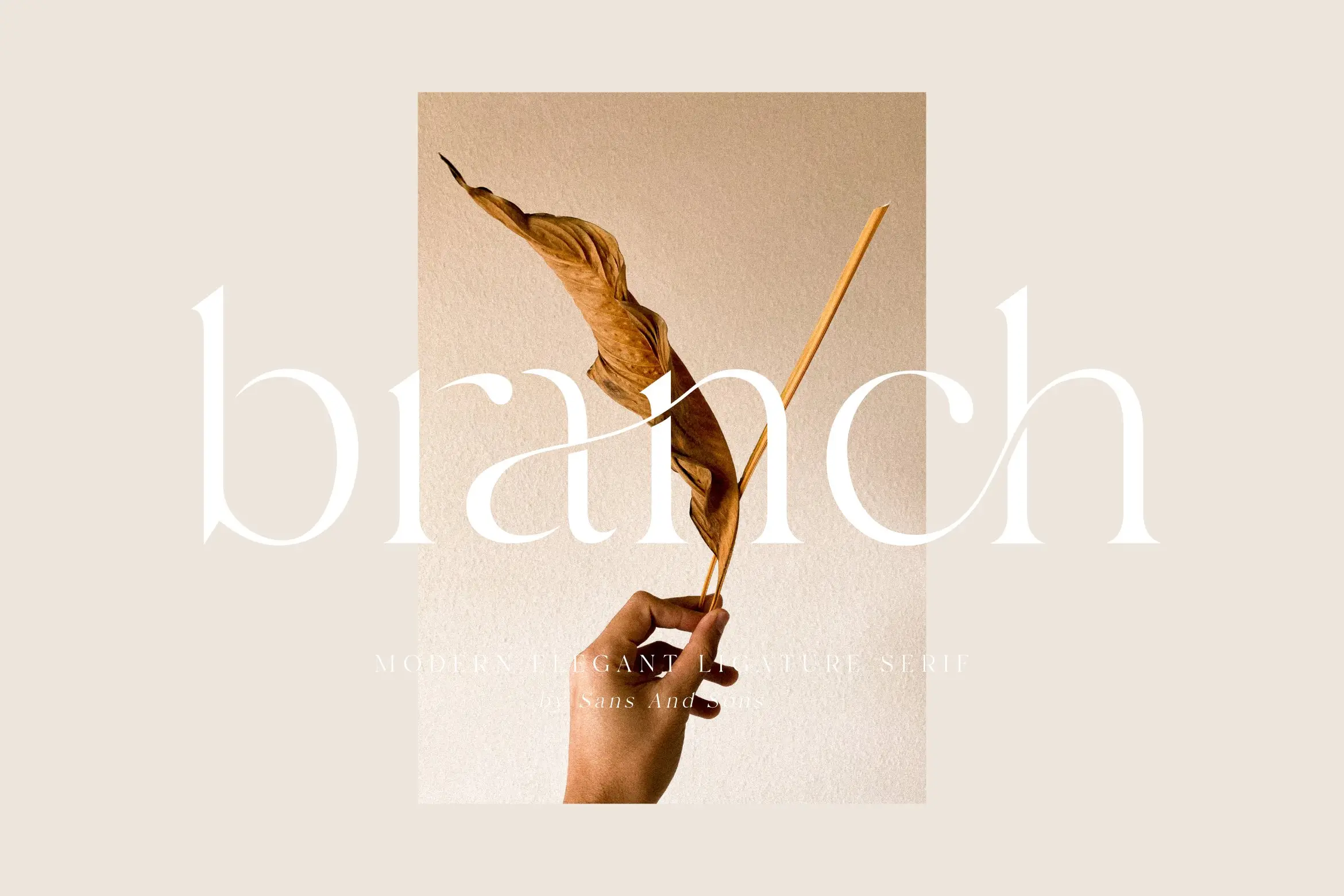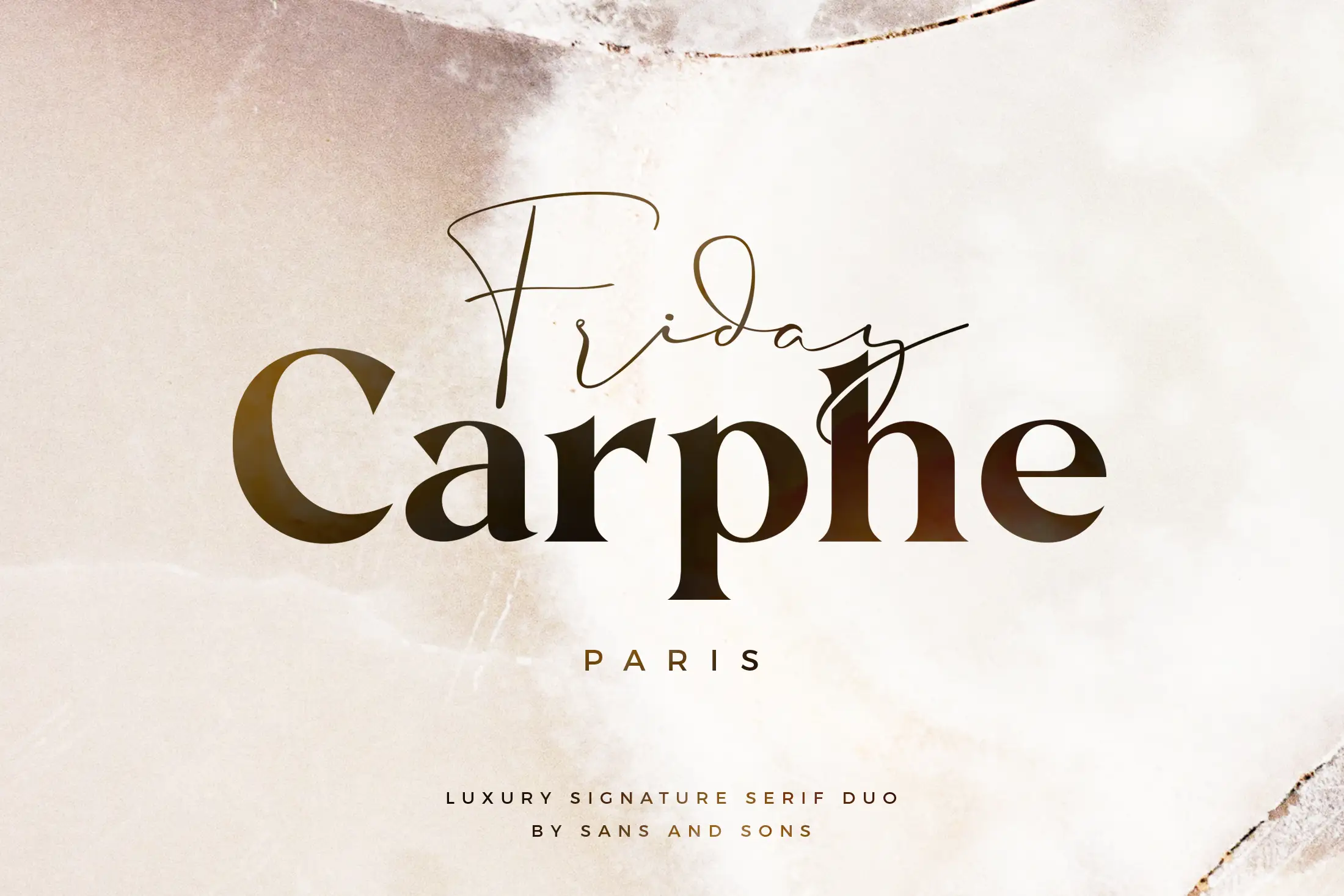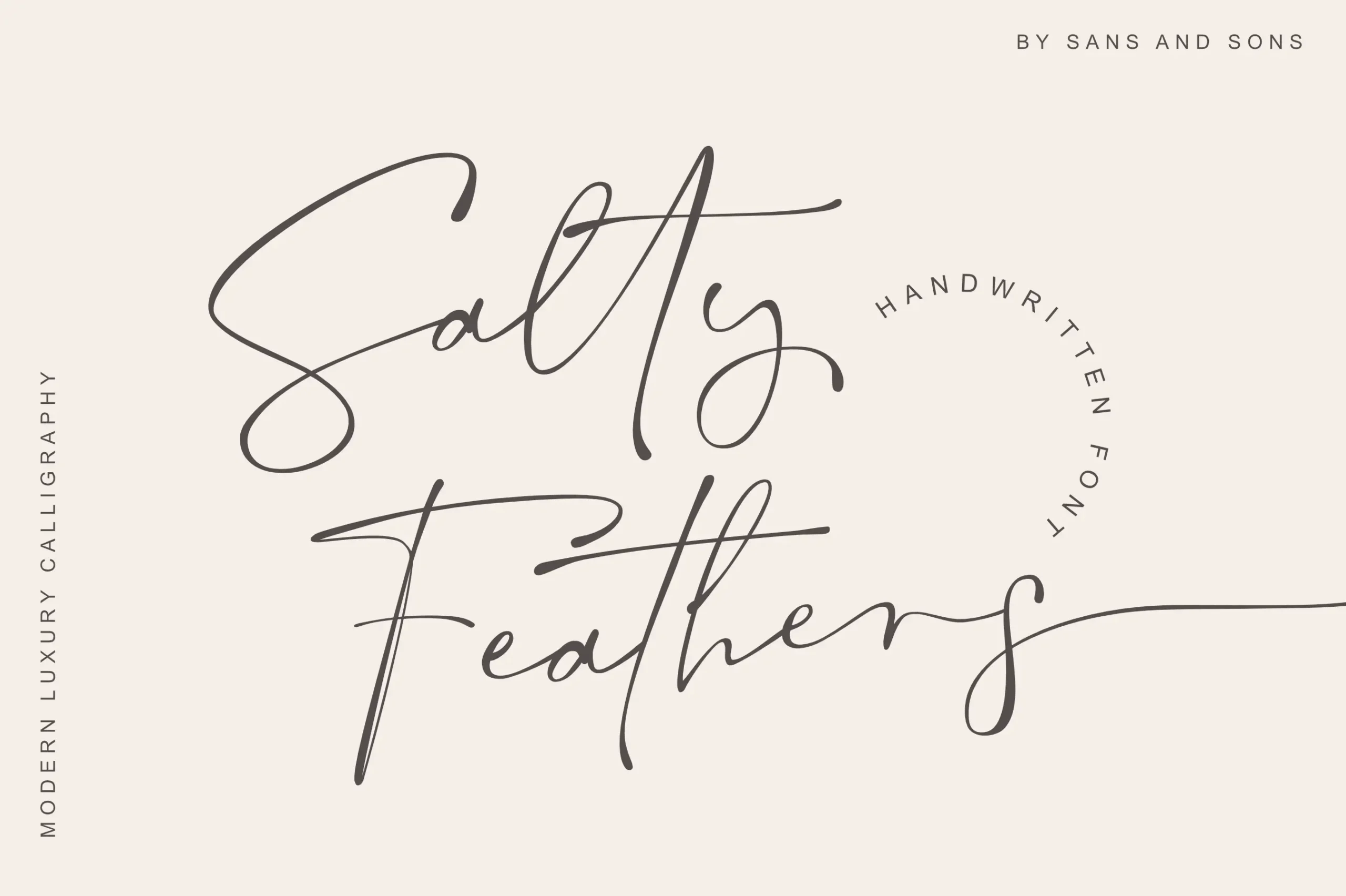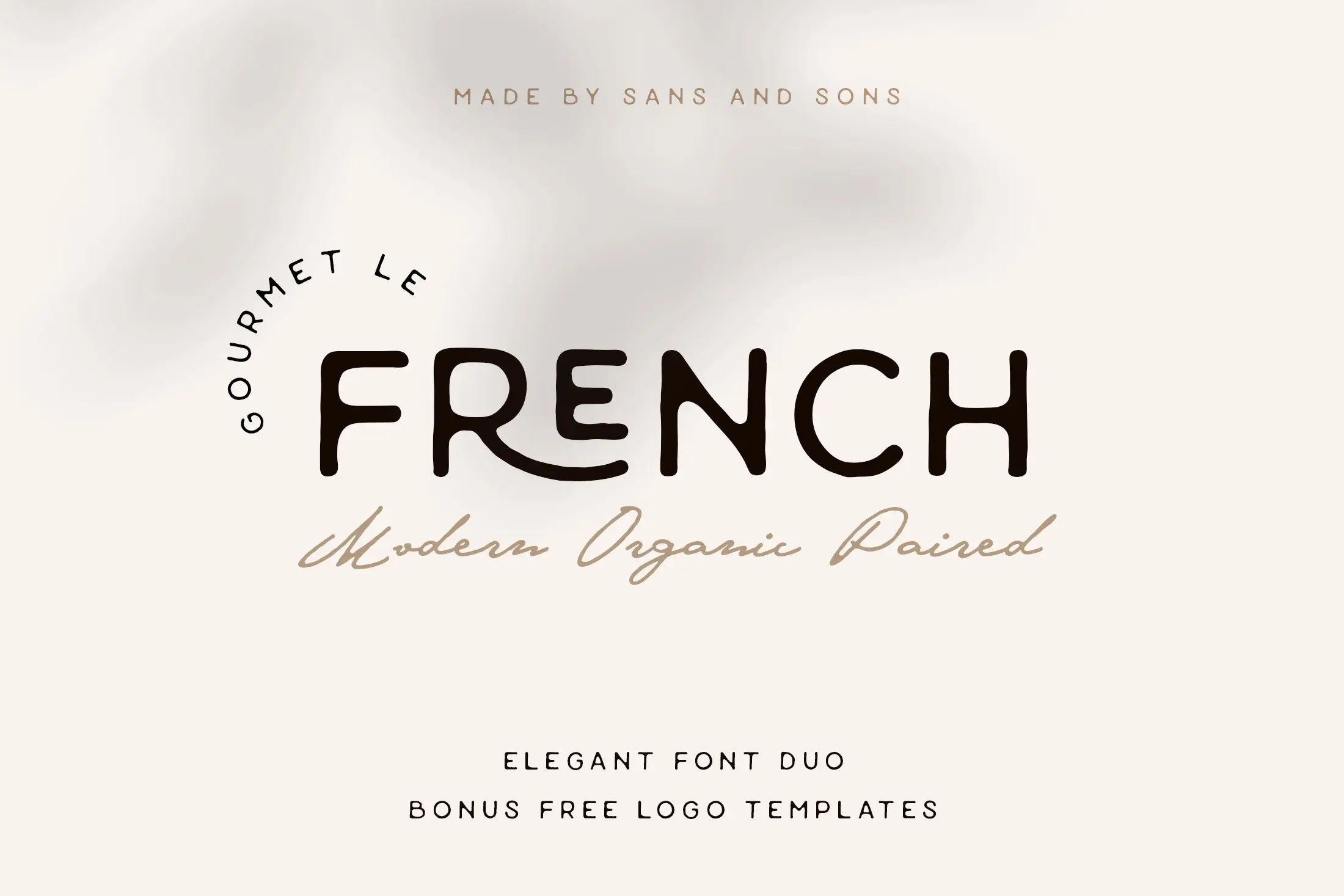
Modern Elegant Font Bundle
Introducing the Modern Elegant Font Bundle, a carefully curated collection of sophisticated typefaces designed to elevate your creative projects. This bundle includes a variety of font styles, each crafted to bring a touch of elegance to your branding, logos, websites, and print materials.
• Multiple font styles including serif, sans-serif, and script
• Various weights for flexibility in design
• Includes both uppercase and lowercase characters
• Stylish ligatures and alternate characters for unique typography
• Weights: Light, Regular, Bold
• Perfect for branding projects, invitations, and marketing materials
• Ideal for web design and user interfaces
• Use in print for business cards, brochures, and posters